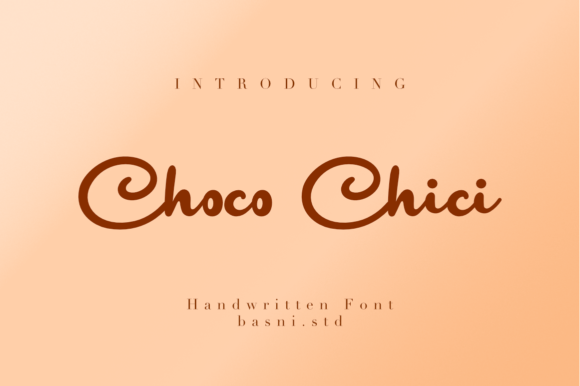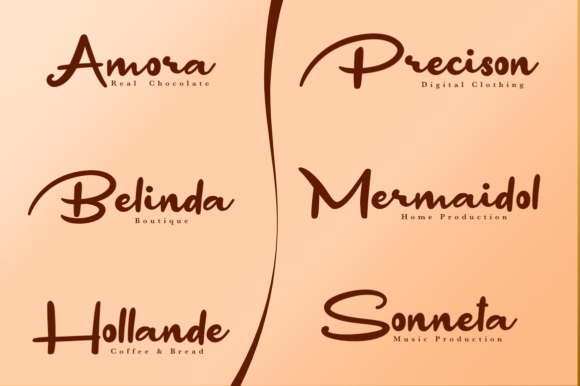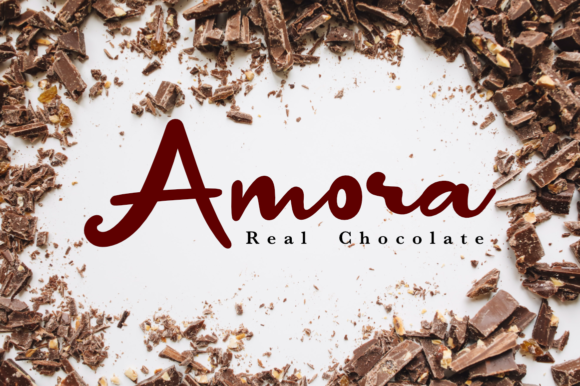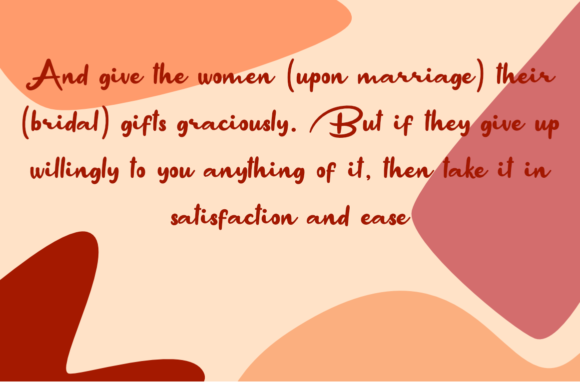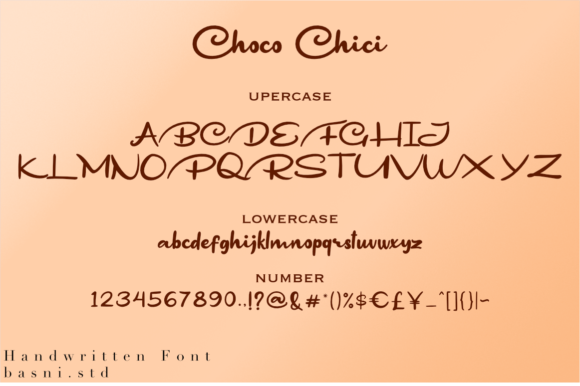
Choco Chici Font
About Choco Chici Font
Introducing Choco Chici, a superb handwritten font designed to make your work stand out with its elegant and curvy lines. This font is perfect for a variety of applications, enhancing product packaging, branding projects, magazine covers, social media graphics, weddings, or whenever you want to express words above a captivating background.
The superb elegance of Choco Chici shines through its carefully crafted lines, creating a visual experience that is both refined and captivating. Imagine this font gracing product packaging, elevating the presence of your brand on shelves. Envision it enhancing the covers of magazines, drawing attention with its sophisticated flair. Whether used in social media graphics or wedding materials, Choco Chici becomes a versatile tool for adding a touch of timeless beauty to your designs.
The elegant and curvy lines of Choco Chici contribute to its overall charm, making it a standout choice for projects that demand a handwritten font with a sense of style. Its ability to convey both modernity and classic elegance ensures that it complements a wide range of creative endeavors.
Embrace Choco Chici as the font that brings an extra layer of elegance to your work. Let its superb and curvy, handwritten charm elevate your product packaging, branding projects, magazine covers, social media graphics, weddings, and more. Allow Choco Chici to be the expressive and sophisticated touch that enhances your creative endeavors.